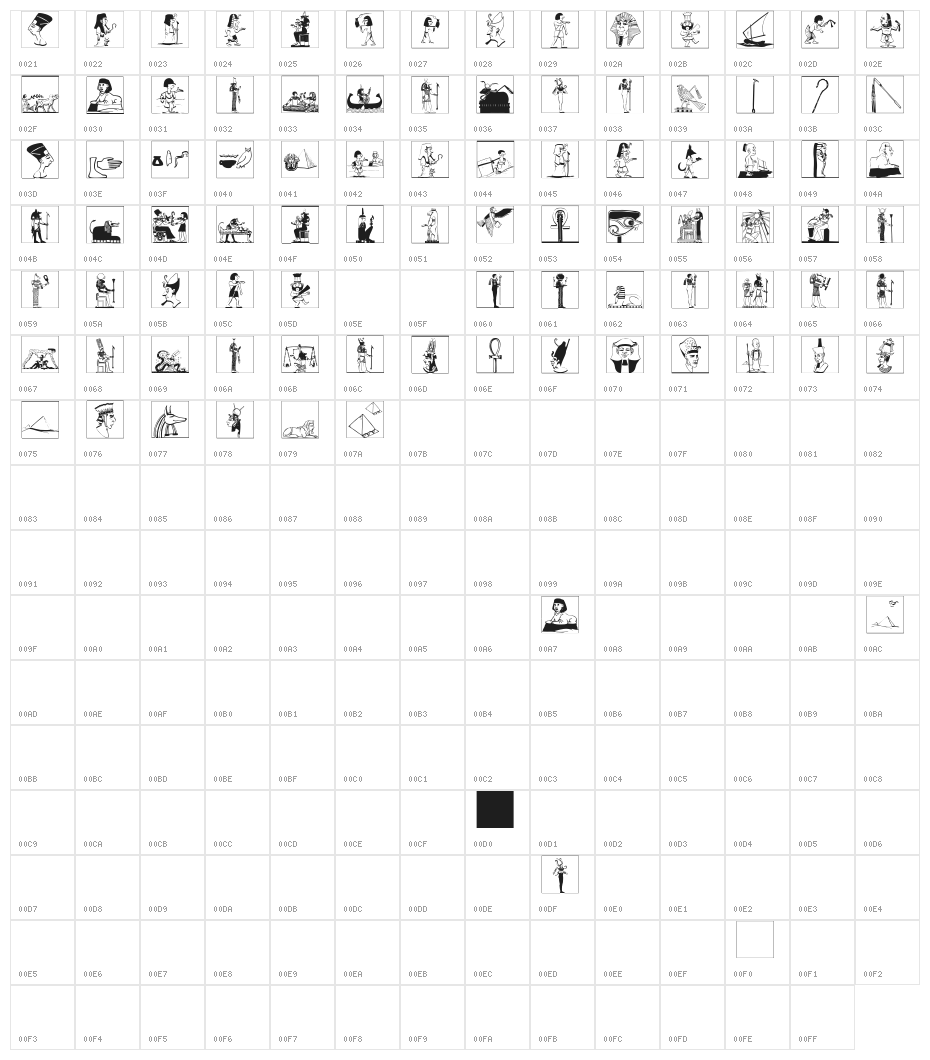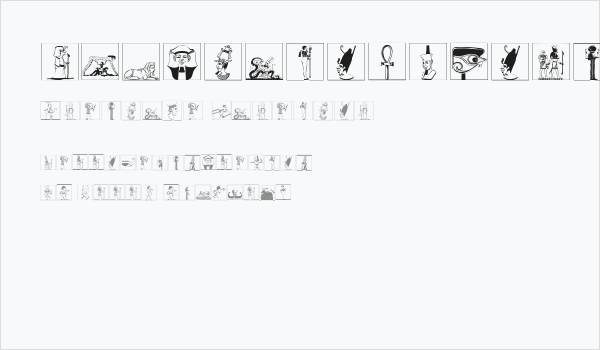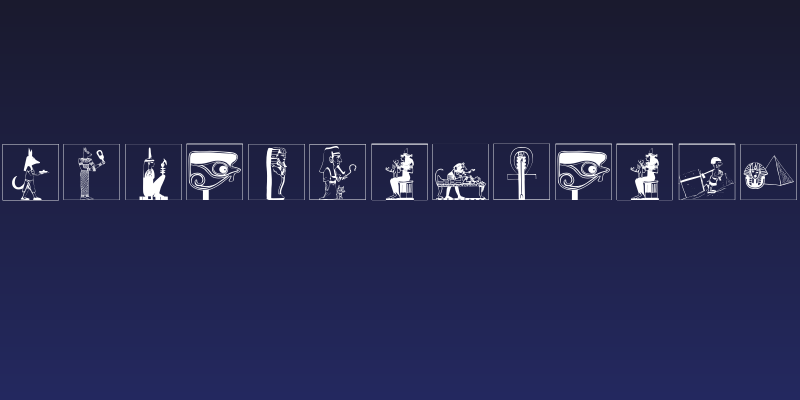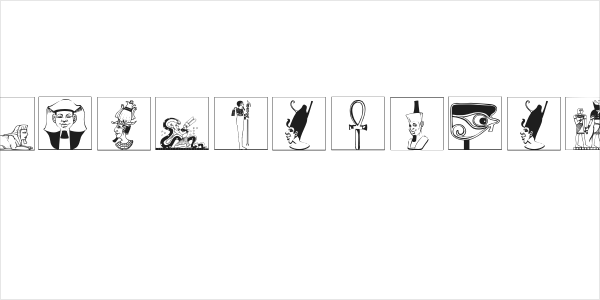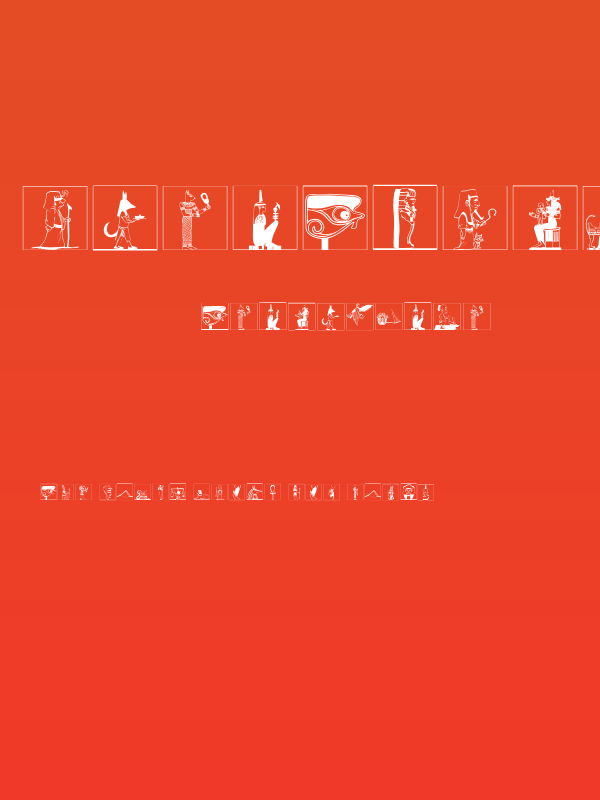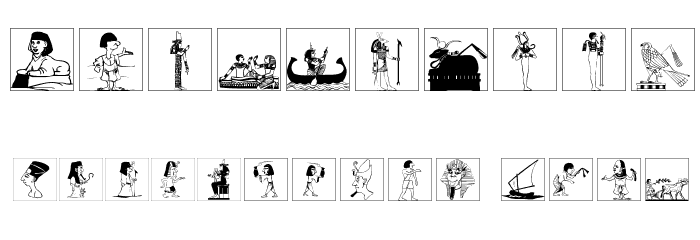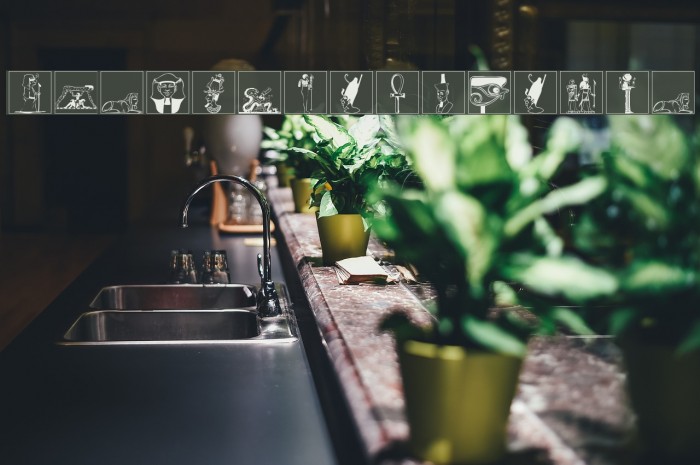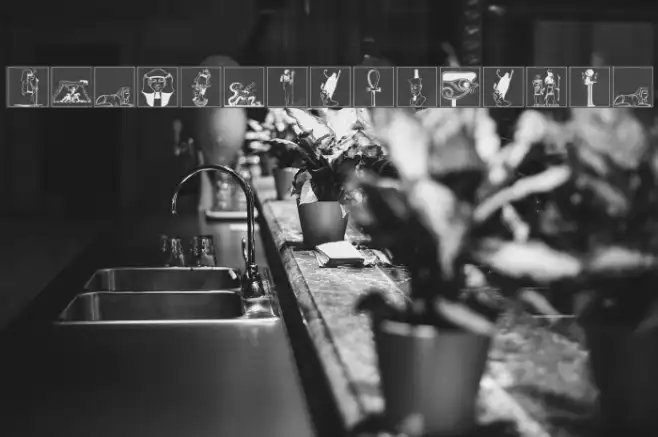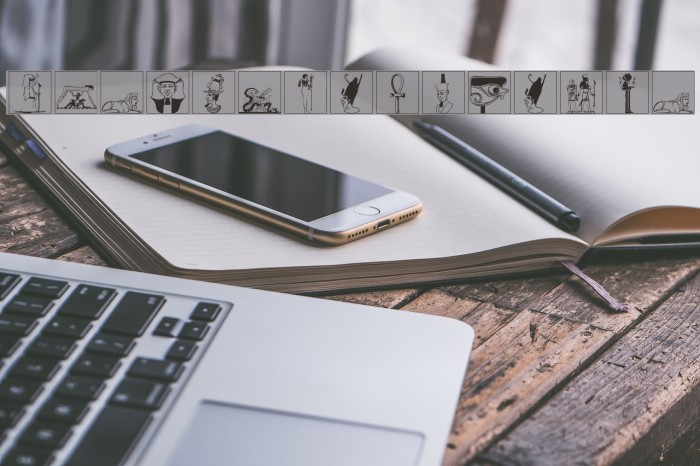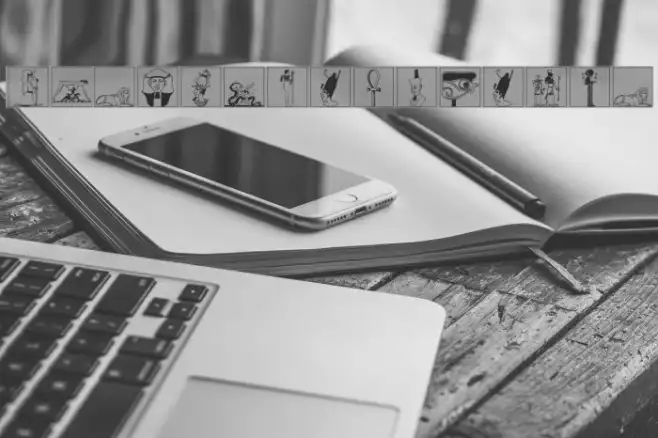
EgypticonsToday Font
EgypticonsToday Description
This set of icons features a collection of ancient Egyptian-themed illustrations, each representing a unique aspect of Egyptian culture and mythology. The icons include depictions of pharaohs, gods, hieroglyphs, and traditional symbols such as the ankh and pyramids. Each character is intricately designed with detailed line work, capturing the essence of ancient Egyptian art. The icons are presented in a consistent style, making them suitable for thematic projects related to history, education, or cultural representation. The overall aesthetic is both decorative and informative, offering a visual journey through ancient Egypt.
| Proposed Projects | Ideal for educational materials, historical presentations, themed graphic design projects, and cultural exhibitions. |